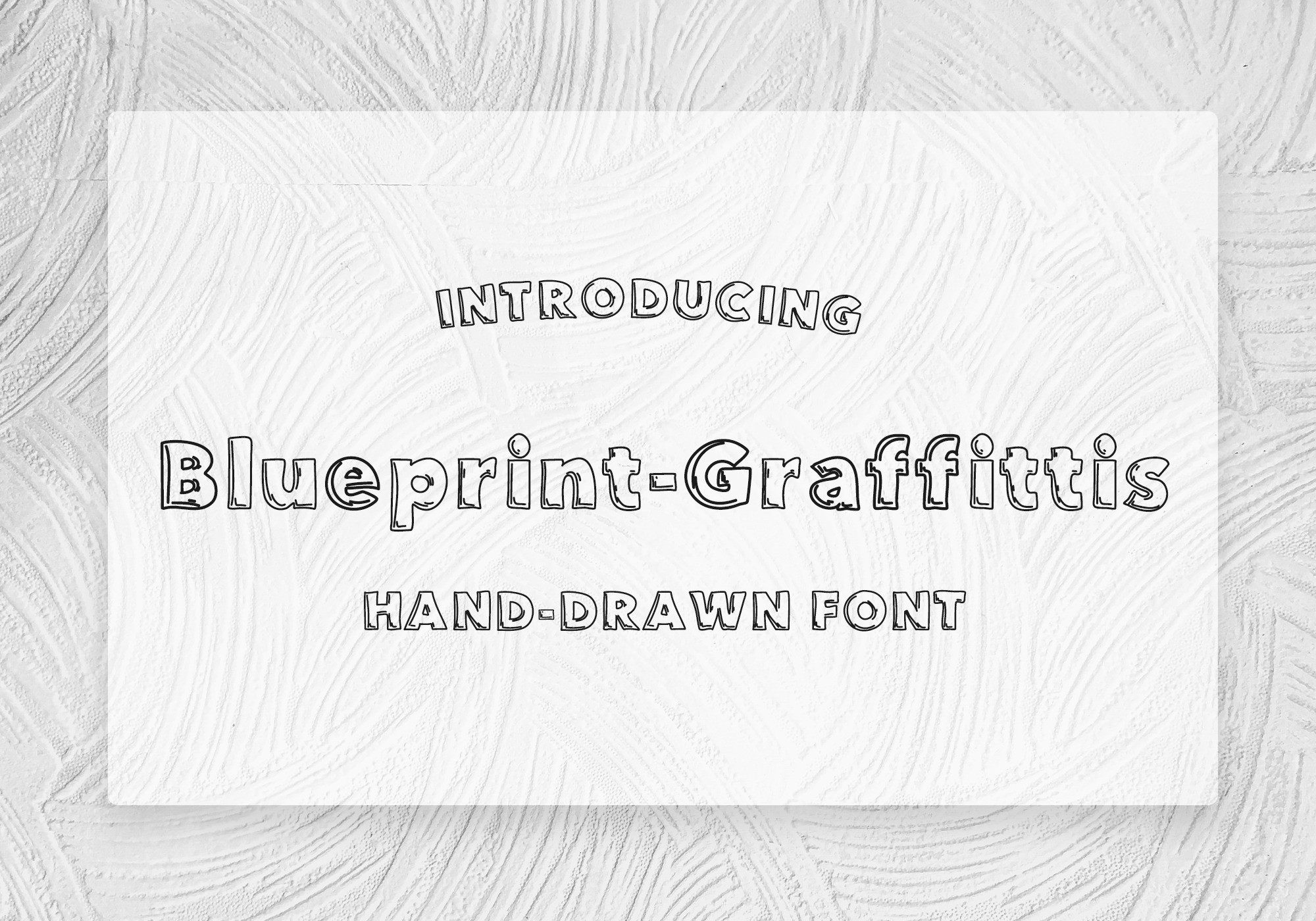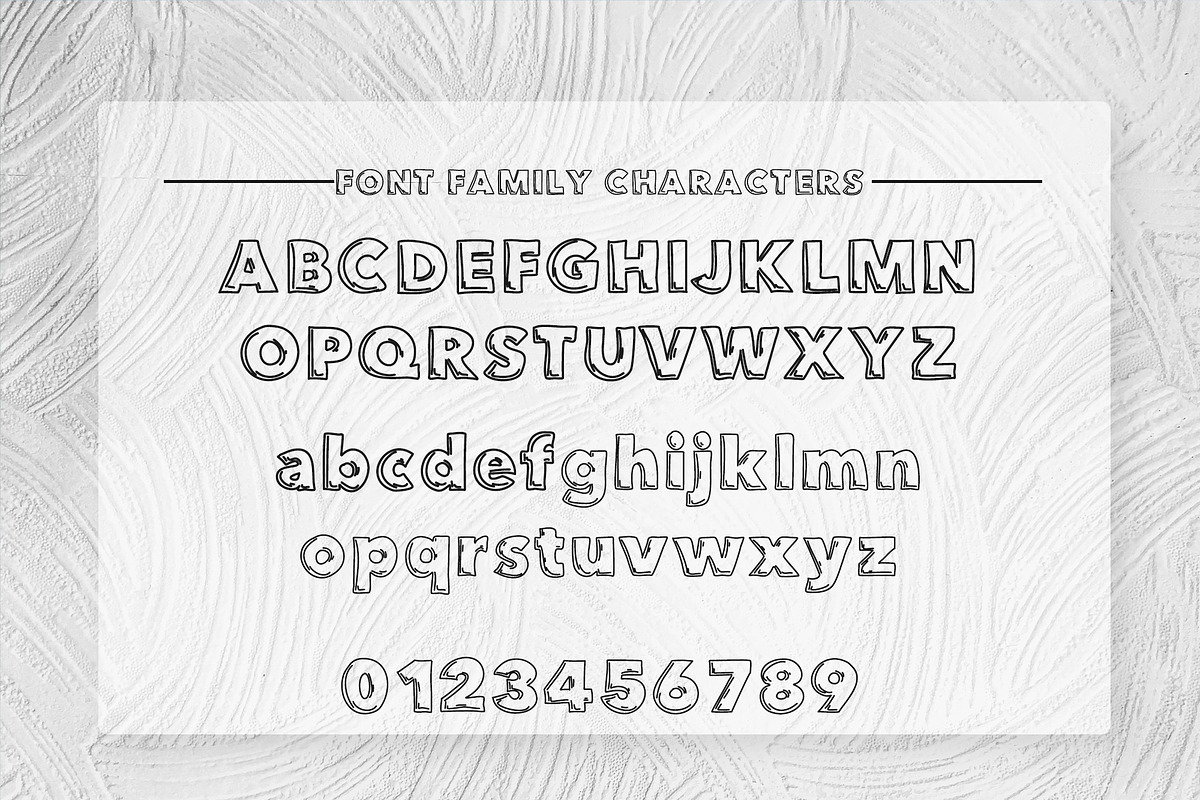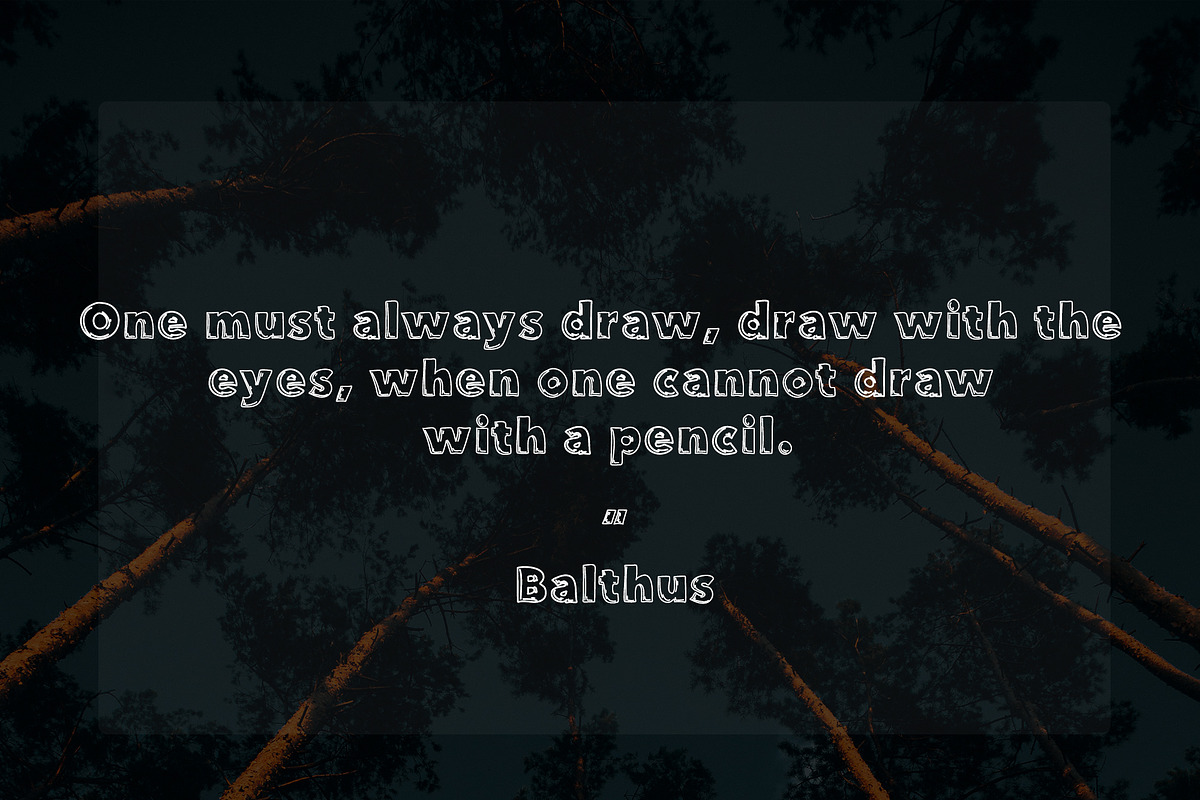
Blueprint-Graffittis Font
Blueprint-Graffittis is a versatile font inspired by graffiti art. It captures the raw energy of street art, making it perfect for creative expressions like hand drawing, handwritten notes, sketchnoting, and graffiti-inspired designs. Its edgy style adds a unique touch to any project, allowing you to bring an urban vibe to your work. This font is also perfect for digital projects such as logos, branding, identity, invitations, etc. The font includes upper and lowercase basic characters, numbers, marks, and punctuation.
It's very important to understand that this is a light version and only includes the basics required for writing, not extra types or languages.